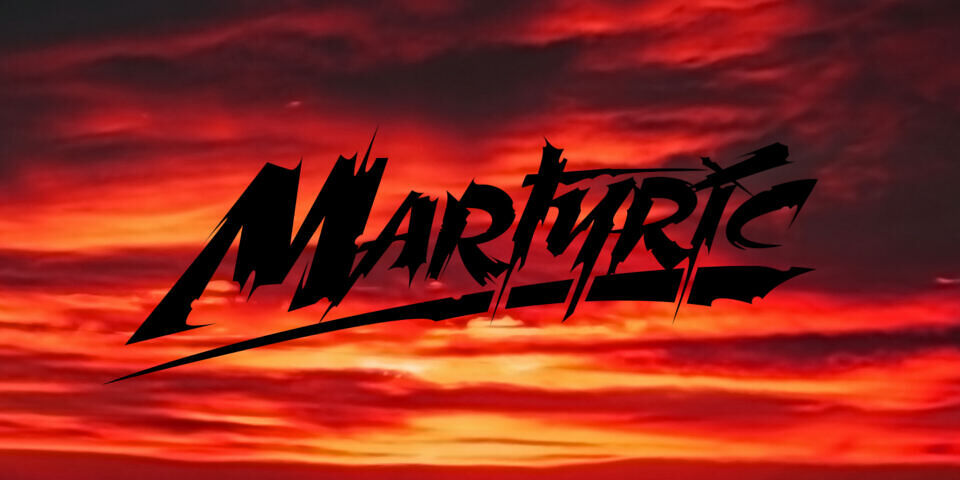
Martyric Font
Martyric is a wild trash-style typeface. The font is built with advanced OpenType functionality and has a guaranteed top-notch quality, containing stylistic and contextual alternates, ligatures, and more features; all to give you full control and customizability. It has extensive lingual support, covering all Latin-based languages, from Northern Europe to South Africa, from America to South-East Asia.